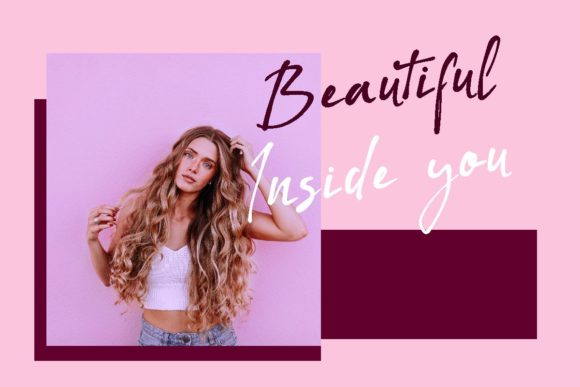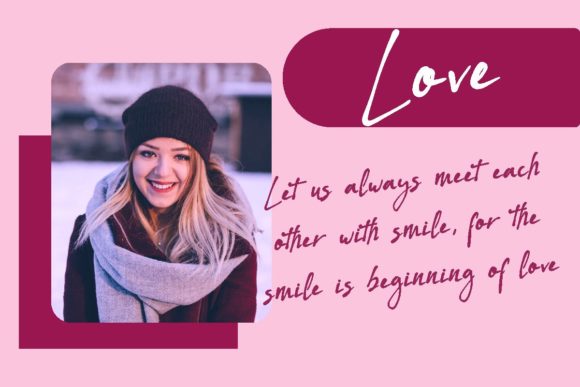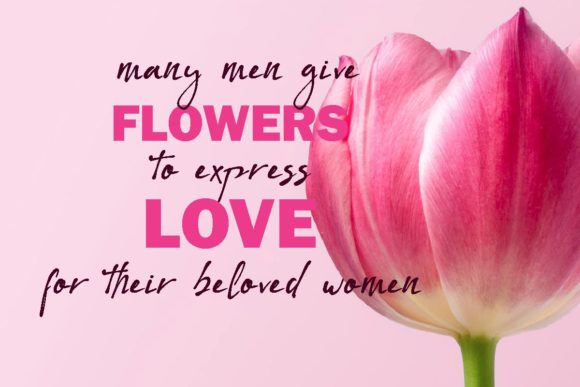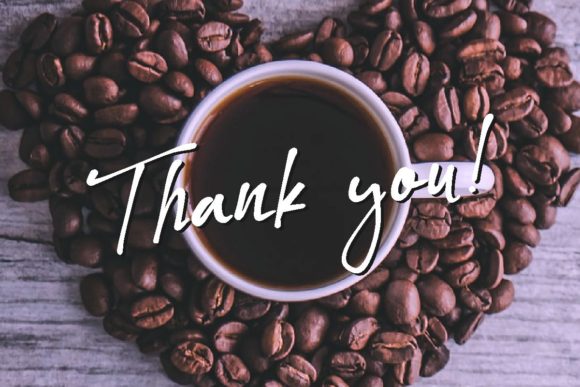
Introduction to Flower of Love Font Font
Fonts play a crucial role in design, and the Flower of Love Font font is a typeface that brings both character and versatility to any project. Whether you’re working on a branding project, a website, or a print design, the Flower of Love Font font offers a unique style that can elevate your work.
Flower of Love is a natural script font.
Itβs perfect for logos, quotes, posters, playful lettering, clothing and any other design which needs an unique touch .
Key Features of Flower of Love Font Font
Why Choose Flower of Love Font Font?
The Flower of Love Font font is more than just a typeface β it’s a design tool that helps you communicate your message with style and clarity. Its unique character set and versatile design make it suitable for a wide range of applications, from elegant invitations to bold headlines.
With its carefully crafted letterforms and balanced proportions, the Flower of Love Font font ensures readability and visual appeal across all mediums.
What makes Flower of Love Font font special?
The Flower of Love Font font stands out with its unique design, exceptional readability, and versatility across various design applications.